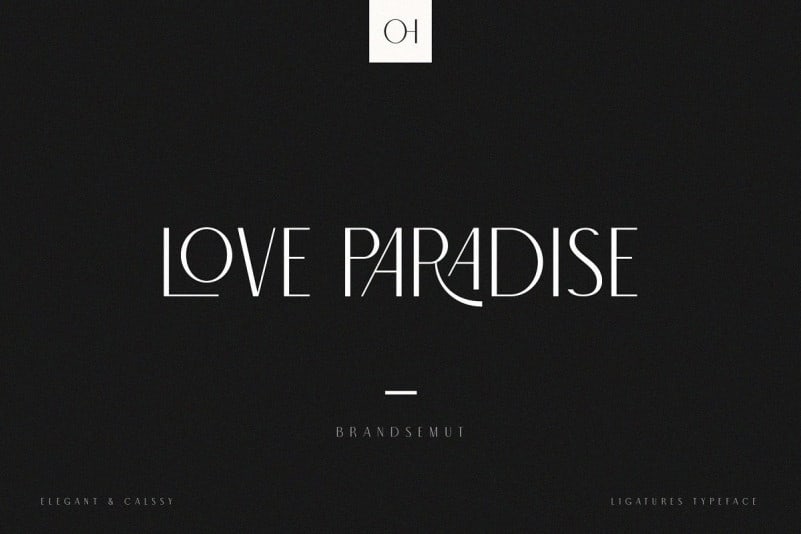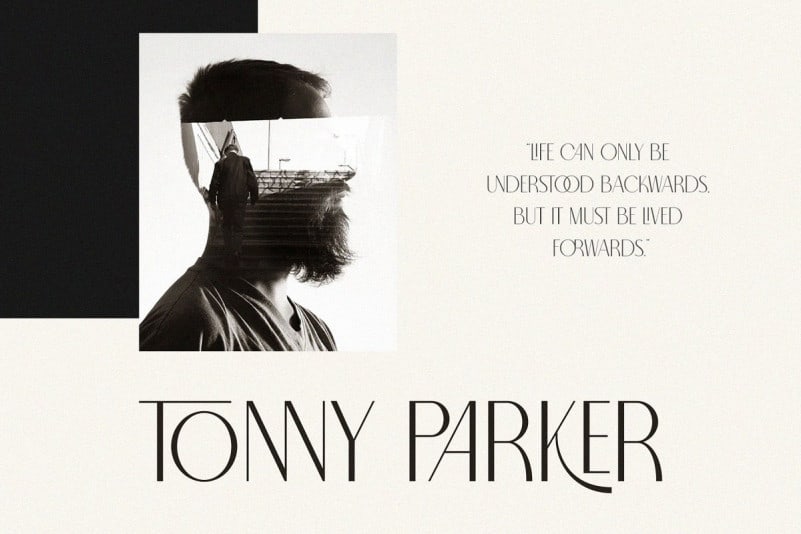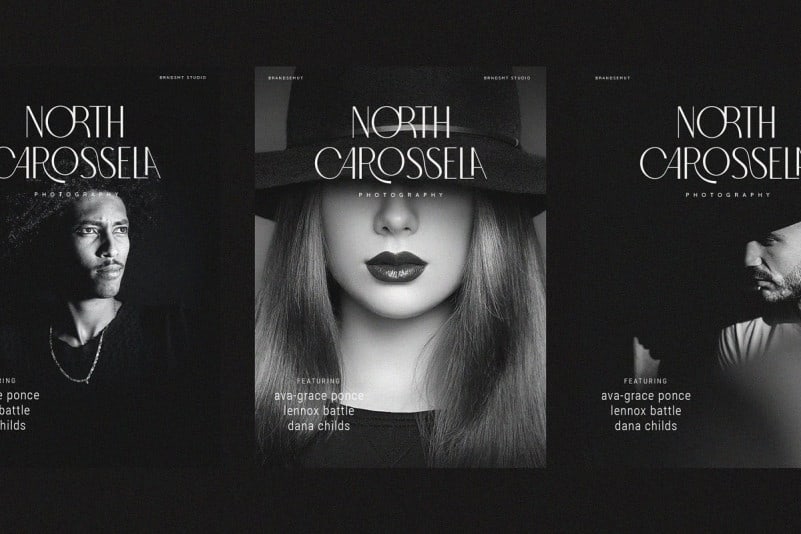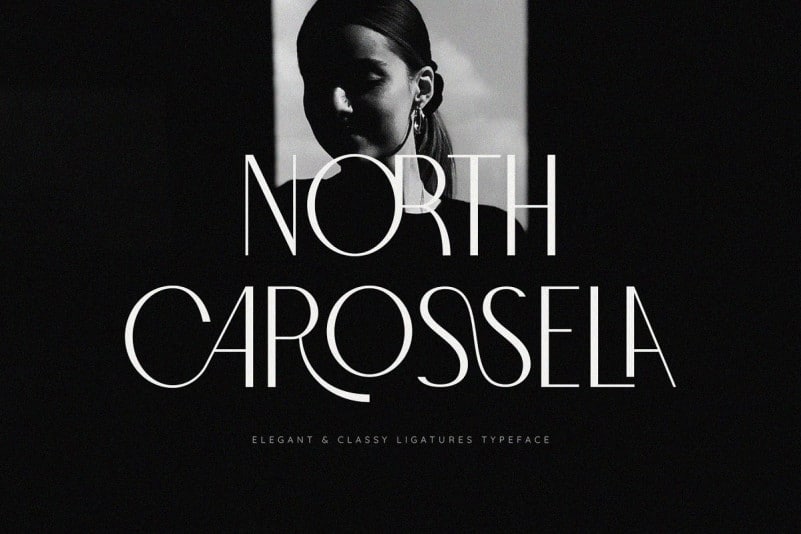
North Carossela Display Font
Hello everyone. North Carossela Display Font is a high contrast all-caps serif typeface with an elegant calligraphic touch. Inspired by didones, it features thin bracketed serifs, sleek lines, proportioned curves, angled axis…all, with a sense of fashion. already matched up and ready to be used together for your next design! For those of you who are needing a touch of elegant, stylish, classy, chic and modernity for your designs, this font was created for you!
North Carossela was built with OpenType features and includes ligatures, alternates, numbers, punctuation, and it also supports other languages.